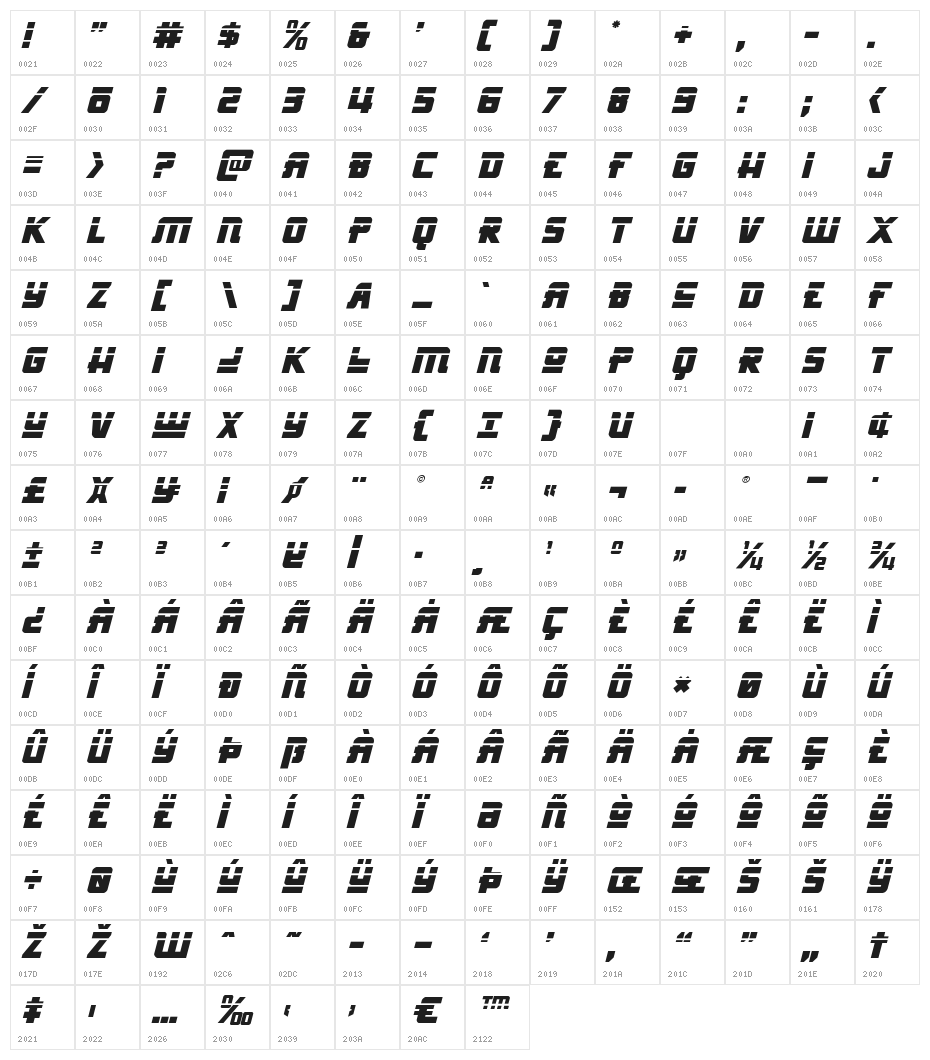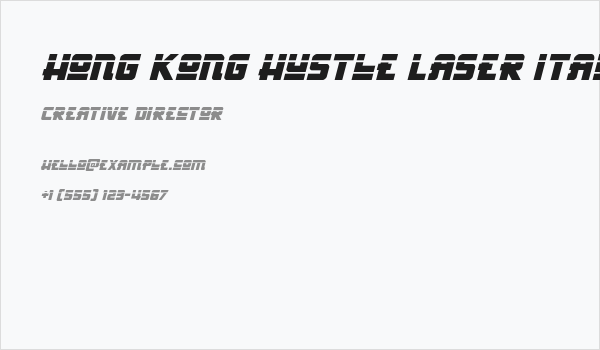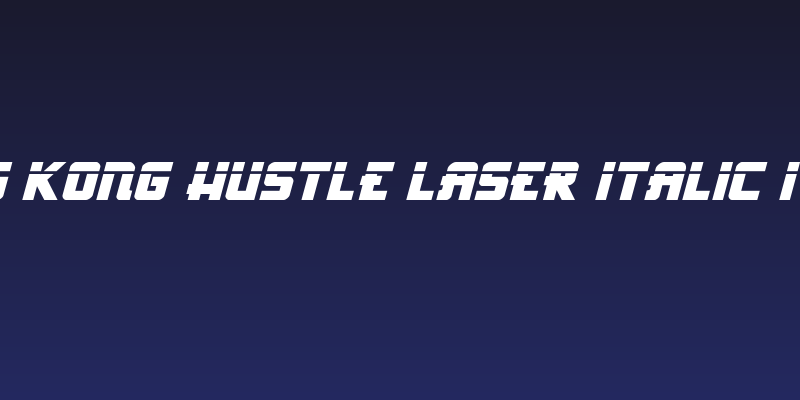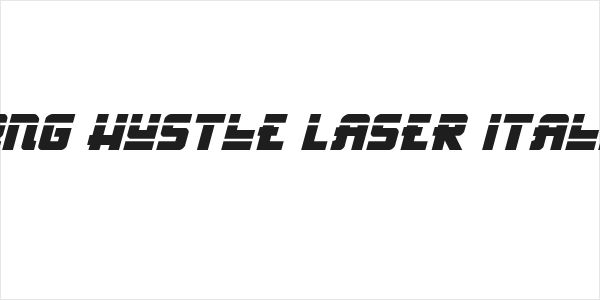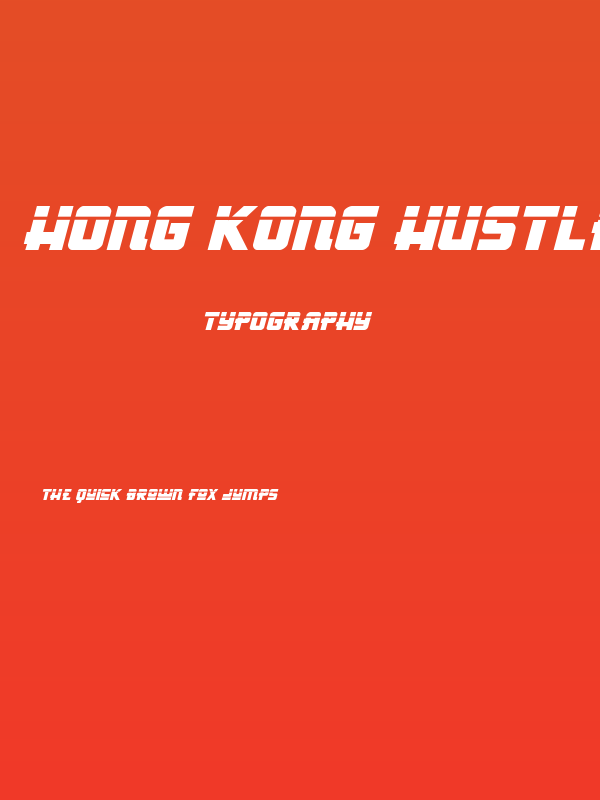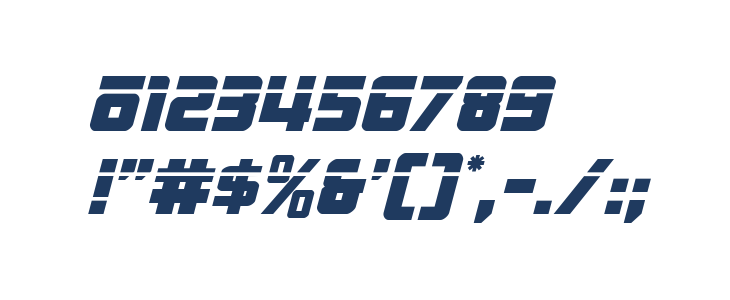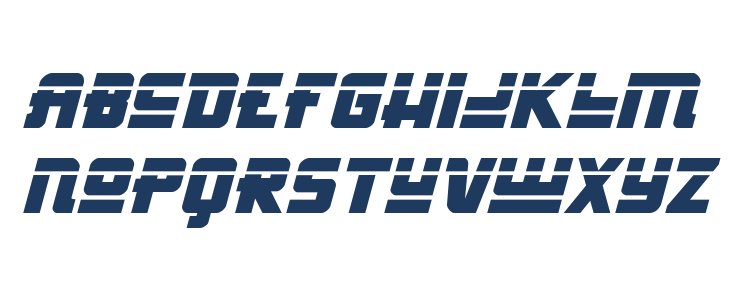
Hong Kong Hustle Laser Italic Italic Font
Hong Kong Hustle Laser Italic Italic Description
This font features a bold, futuristic design with a strong geometric influence. The characters are sharply angled and italicized, creating a sense of motion and speed. The uppercase letters are particularly striking, with wide, blocky forms that are slightly condensed. The lowercase letters maintain this bold style, ensuring consistency across the typeface. Numbers and special characters are designed with the same bold, angular aesthetic, making them stand out. The overall style is modern and dynamic, suitable for projects that require a strong visual impact.
| Proposed Projects | Ideal for sci-fi themed designs, video game titles, tech branding, and dynamic posters. |